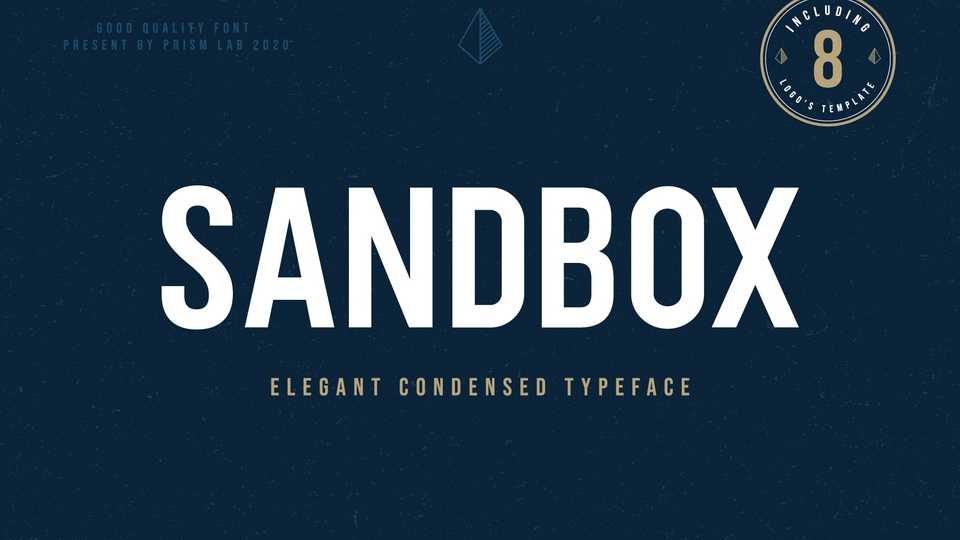
Download Sandbox font, a condensed sans typeface inspired by strong and powerful character, bold and sharp with smooth textures. Sandbox is suitable with your business and modern company.
Designer: PrismLAB